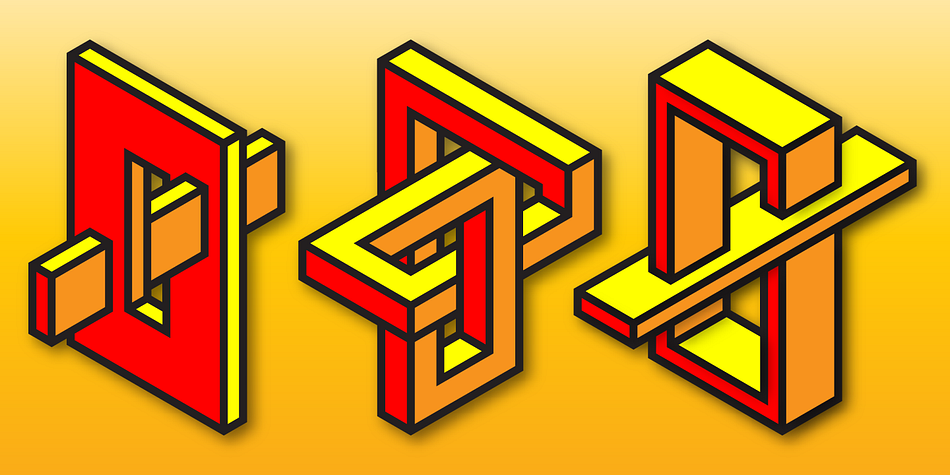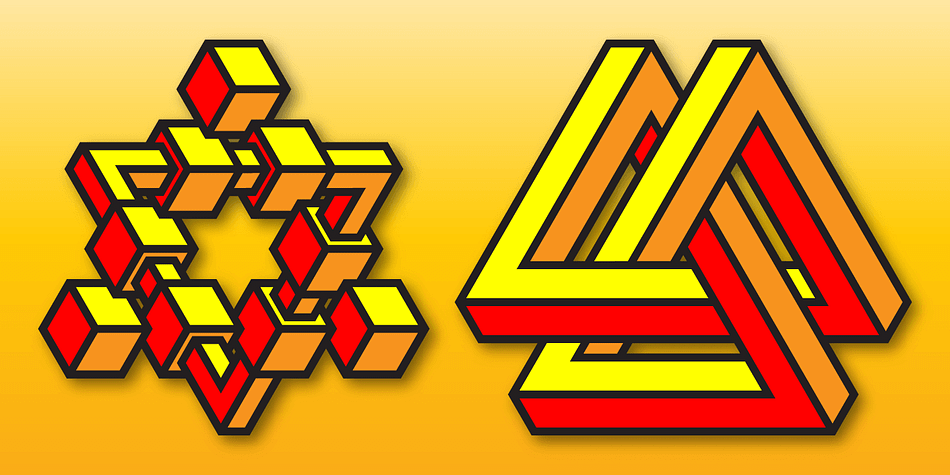
Impossible Ornaments
Designed by Gerald Gallo, Impossible Ornaments is a dingbat font published by Gerald Gallo Fonts.
Impossible Ornaments was inspired by the designs of Swedish artist Oscar Reutersvärd and Dutch artist M. C. Escher whose drawings may initially appear feasible yet cannot be physically constructed, therefore impossible.
There is an assortment of 47 ornaments all located under the character set keys.